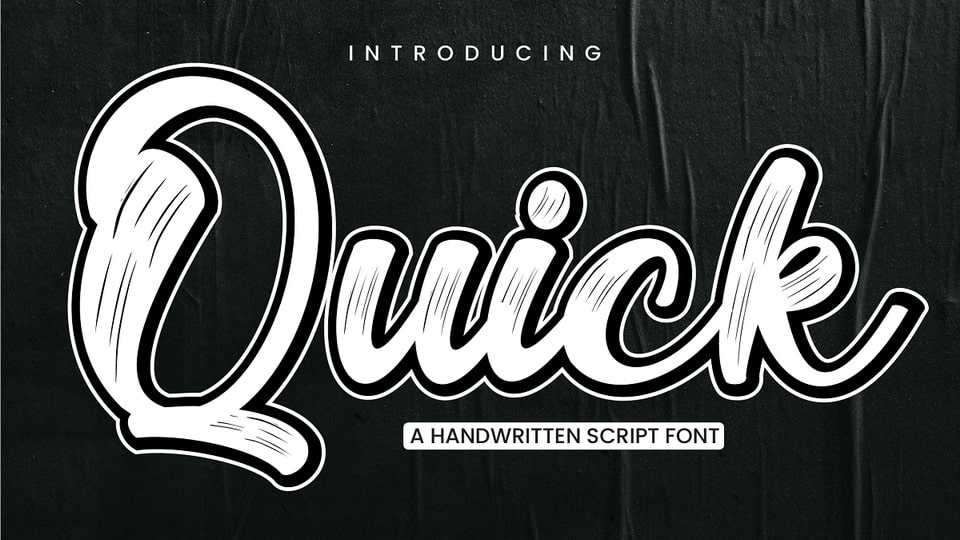
Download Quick font, a script brush typeface that you can use for all chalkboard quotes or teaching materials! Its authentic look will add a personal and realistic feel to your designs.
Designer: Rvandtype Studio